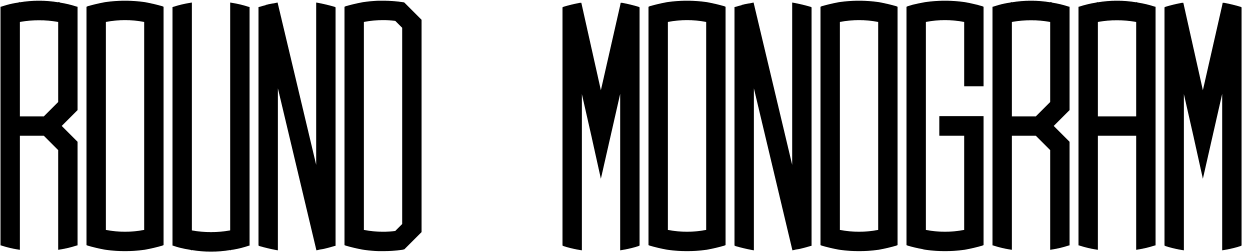
Round Monogram Font
Go with a monogram font to ramp up your text-based layouts. This case is a set of 3 different styles with semi-bold and semicircular characters. Round Monogram works flawlessly for logos, video games, posters, and whatnot. This one is not that legible and doesn’t contain lowercase letters and numbers. Check RB right now to have the other cherry-picked products.